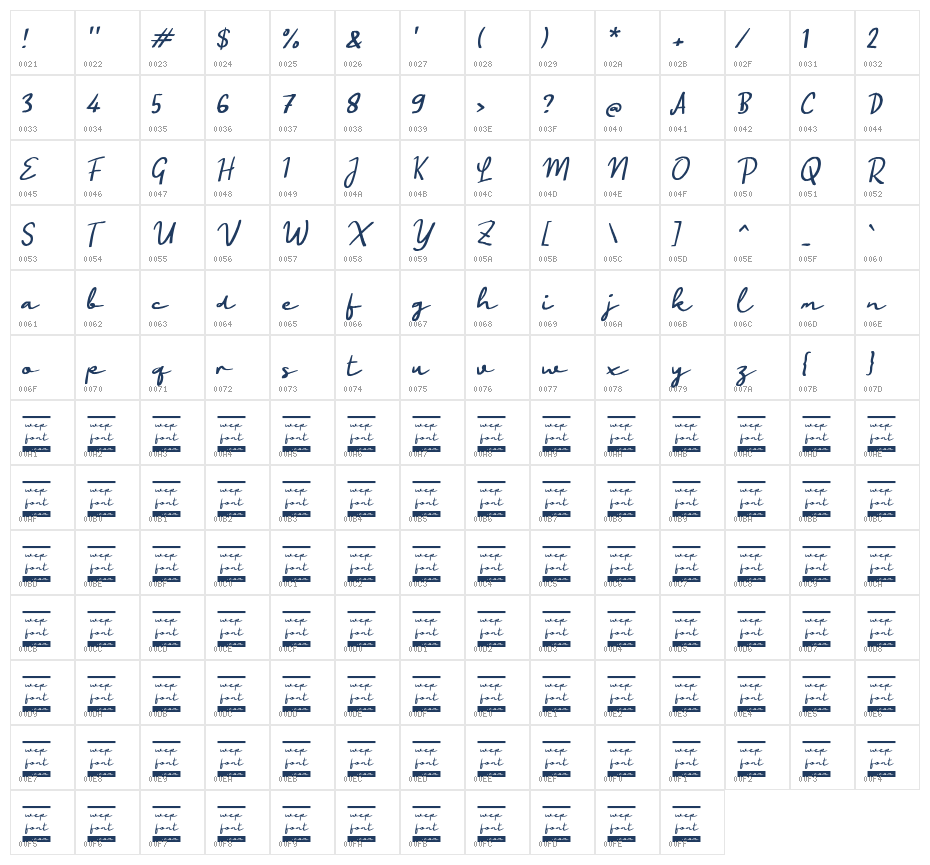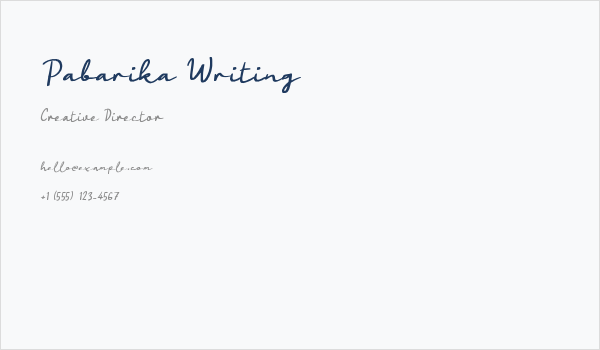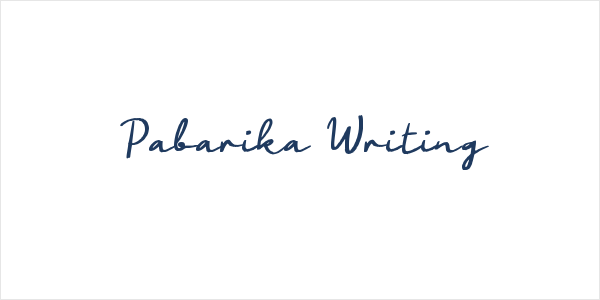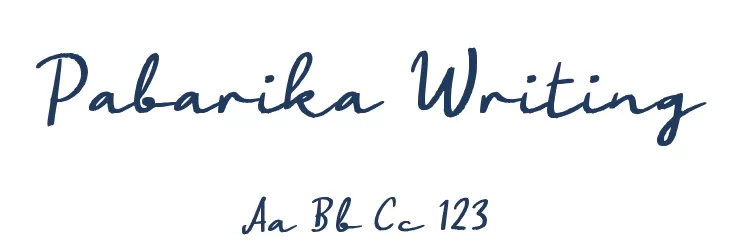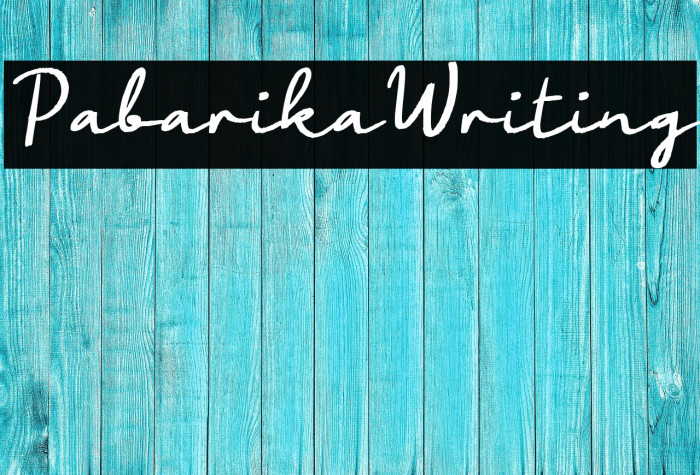
Pabarika Writing Font
Pabarika Writing Description
A casual, handwritten script font with a smooth, flowing style, featuring both uppercase and lowercase letters, numbers, and common punctuation.
| Overall Style | Casual, Handwritten |
| Use Case | Personal projects, invitations, social media, branding |